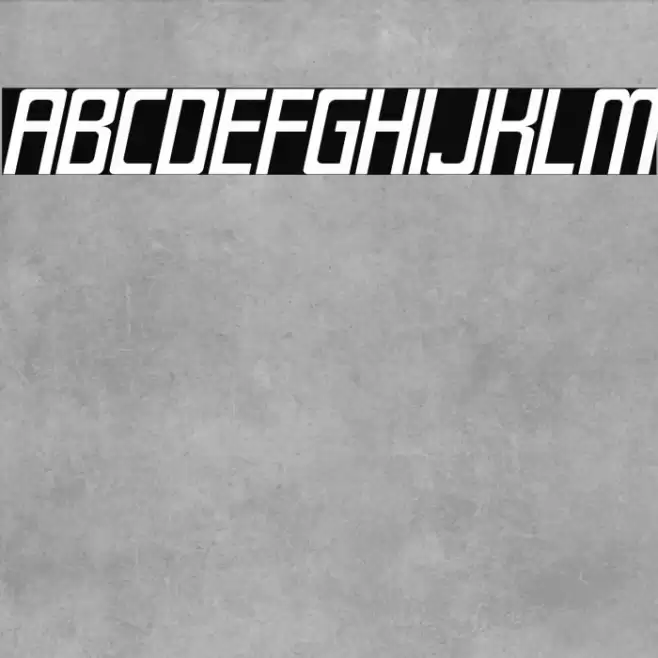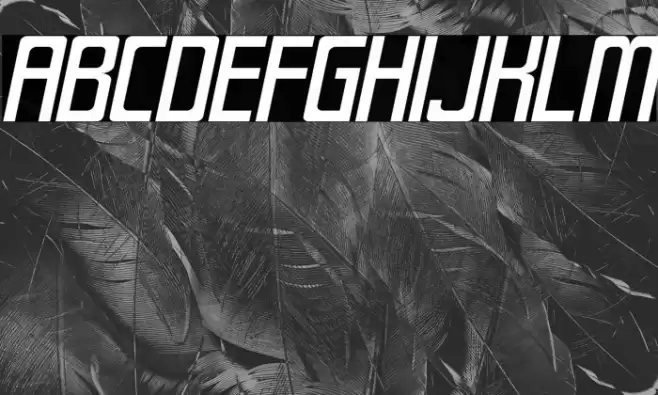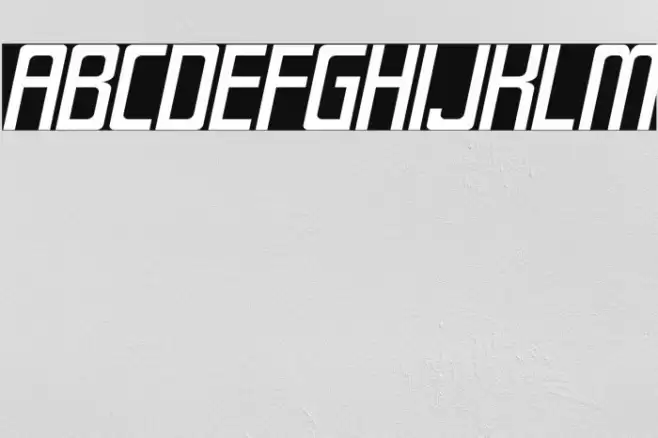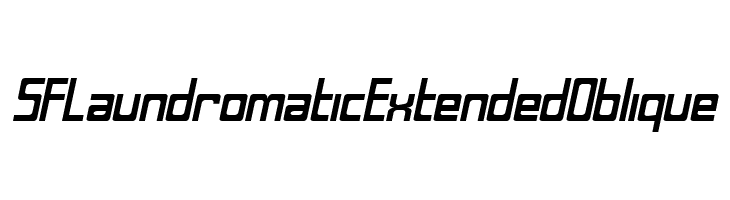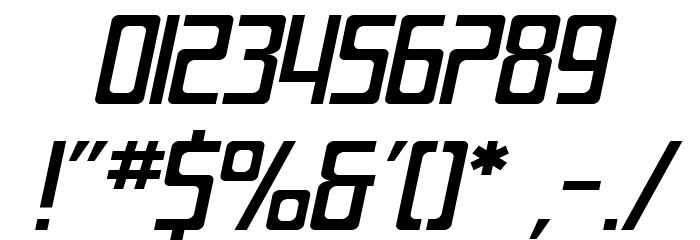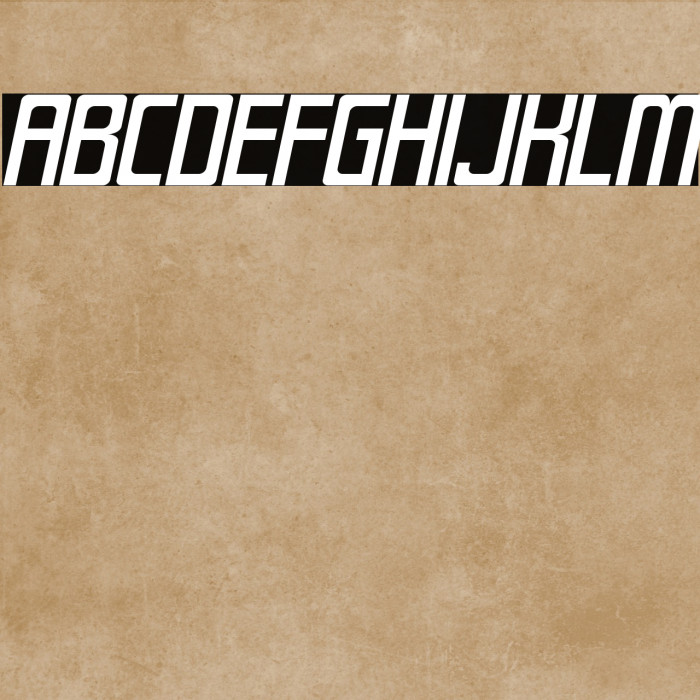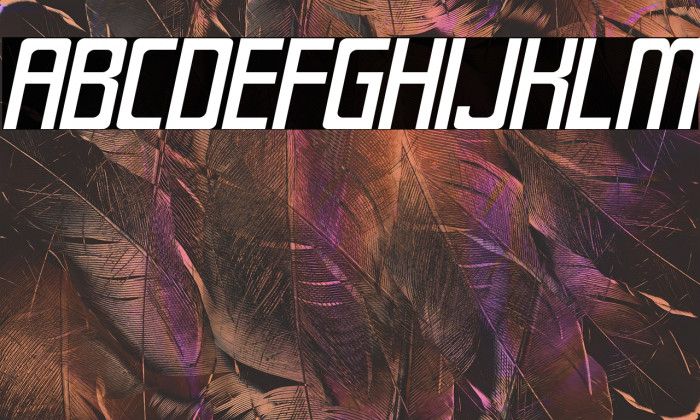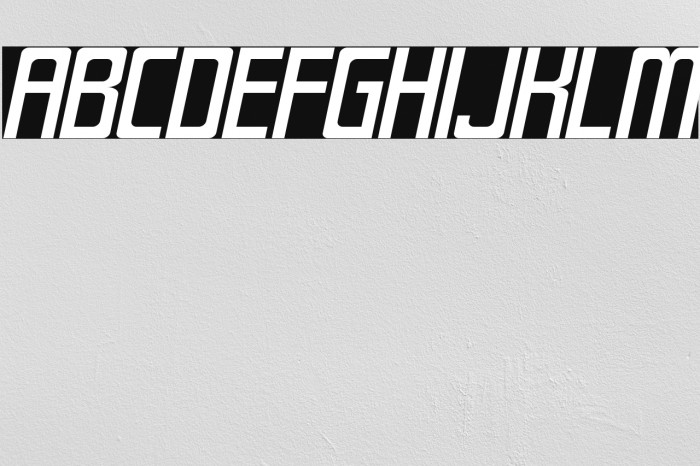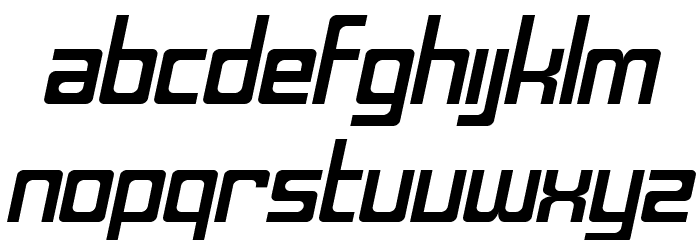
SF Laundromatic Extended Oblique Font
SF Laundromatic Extended Oblique Description
This font features a modern, futuristic design with a distinct oblique style. The characters are elongated and slightly condensed, giving them a sleek and dynamic appearance. The uppercase and lowercase letters maintain a consistent slant, enhancing the font's cohesive look. The numerals and special characters are designed to match the overall aesthetic, with clean lines and a uniform stroke width. This font is ideal for projects that require a contemporary and tech-savvy feel, such as branding for technology companies or futuristic-themed designs.
A modern, oblique font with a sleek, futuristic design from Uncategorized fonts.
- Proposed Projects: Ideal for technology branding, futuristic designs, and modern advertising.